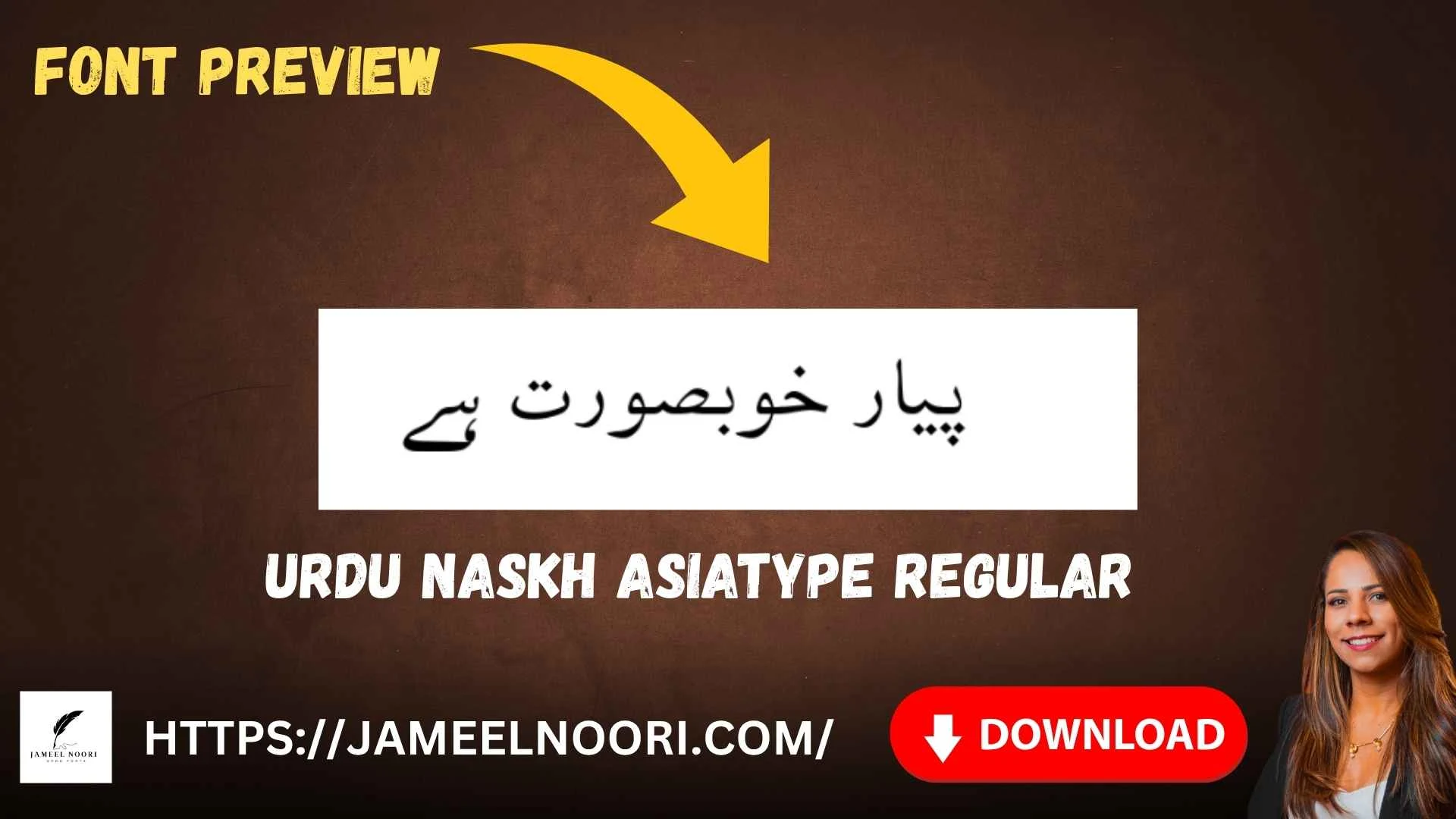
Urdu Naskh Unicode Regular Font Free Download – Classic Urdu Typeface 2026
The Urdu Naskh Unicode Regular Font is a clean, simple, and highly functional TrueType Urdu font that represents the traditional Naskh style in a digital form.With over 2,600 downloads and an average user rating of 2.8 out of 5, this font remains a popular option for users who need a lightweight and reliable Urdu Unicode typeface.